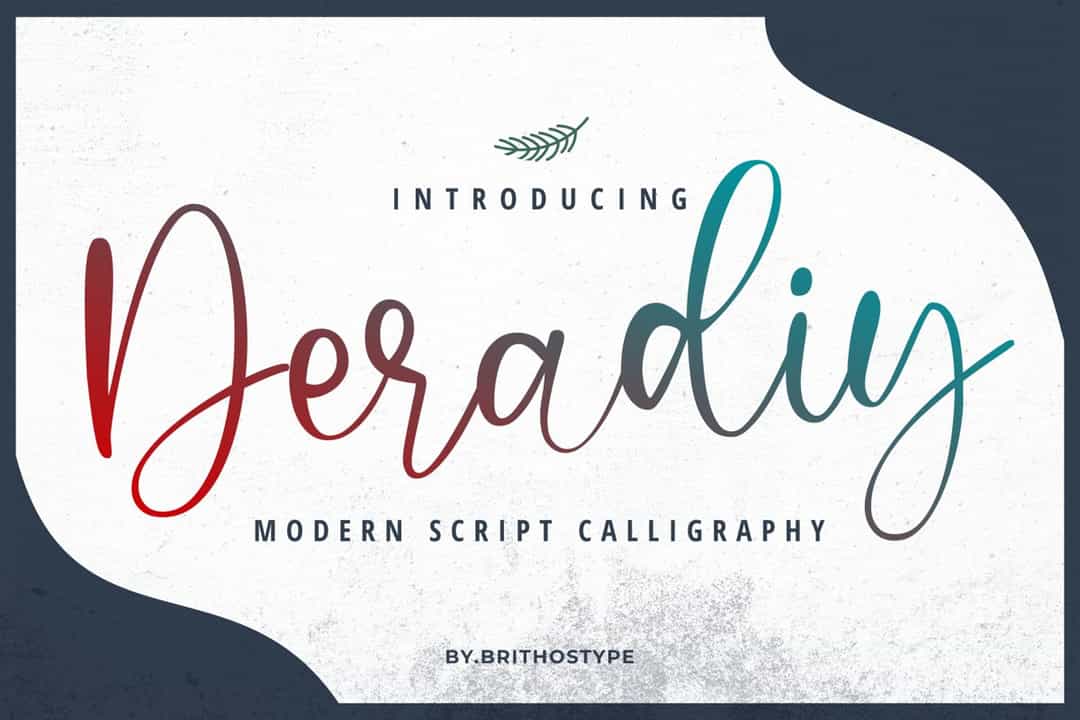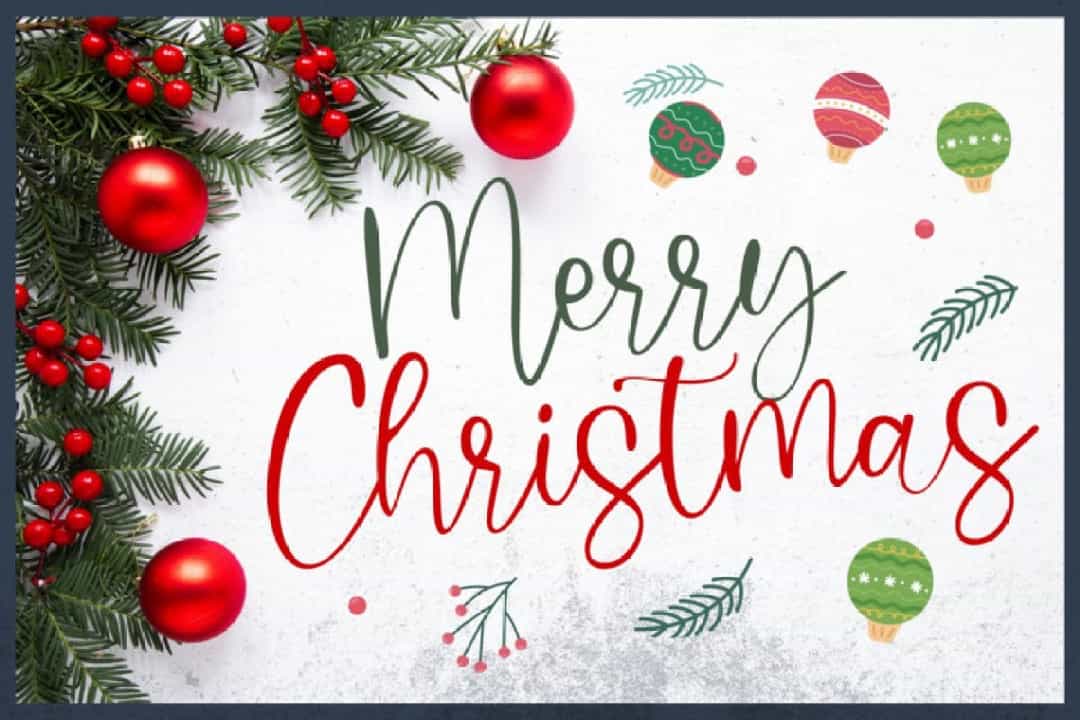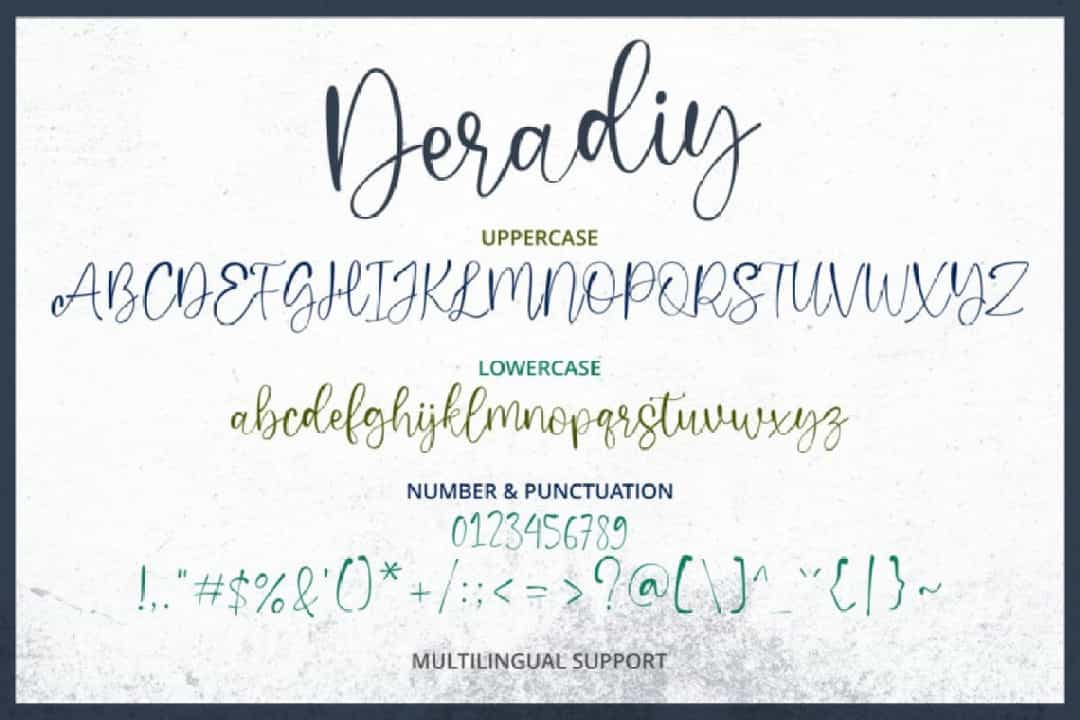
Deradiy is a sophisticated and at the same time, fragile font that suits best for the mentioned purposes. It is perfect for use on wedding invitations, thank you cards and quotes or appreciation quotes, greeting cards with logos or business card logos and any business card which needs to make a style statement.